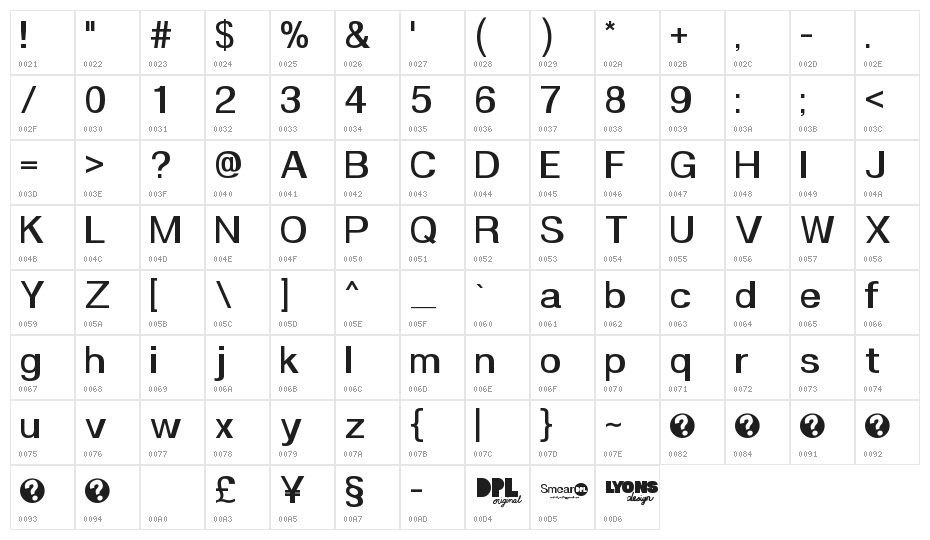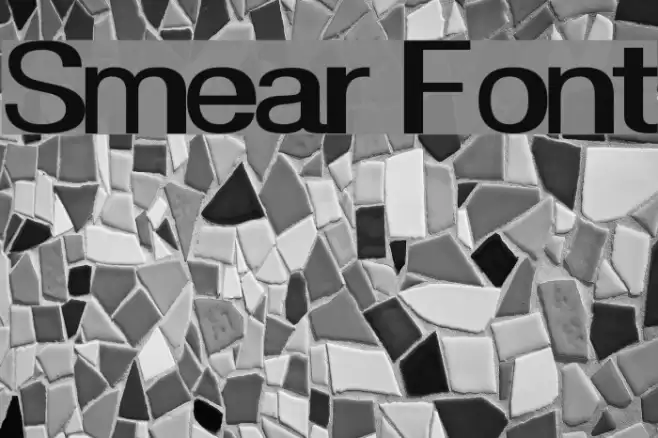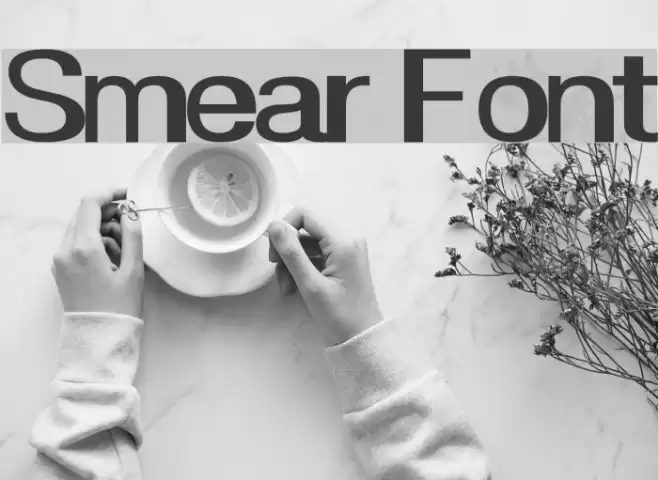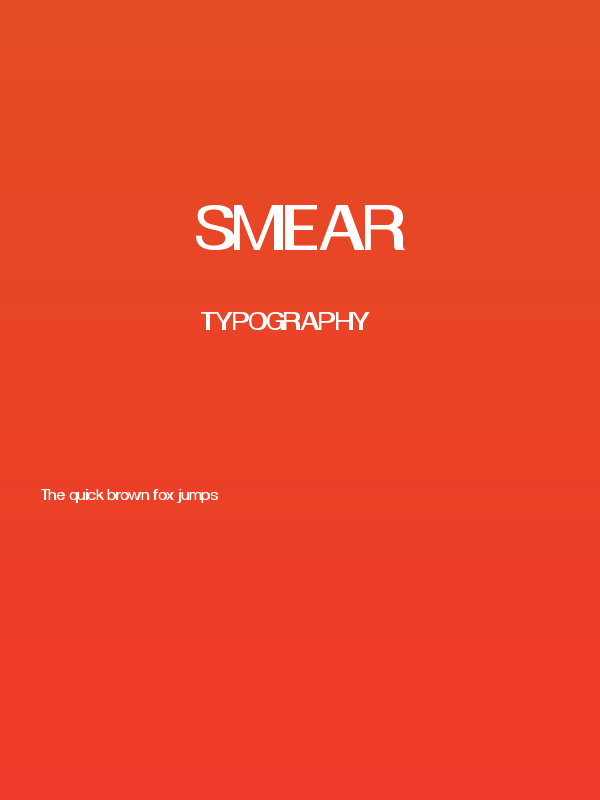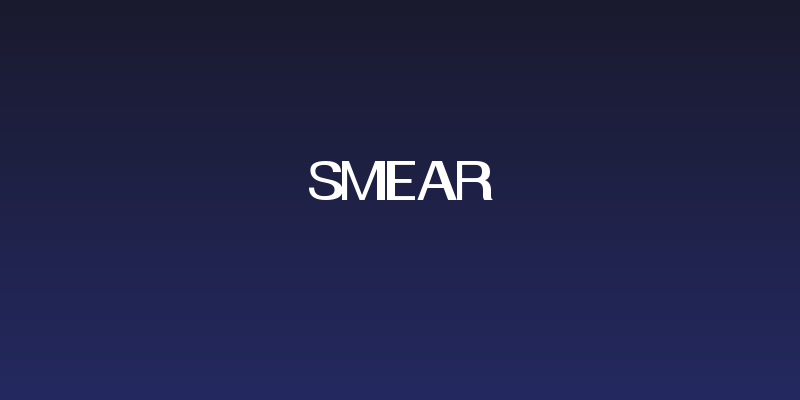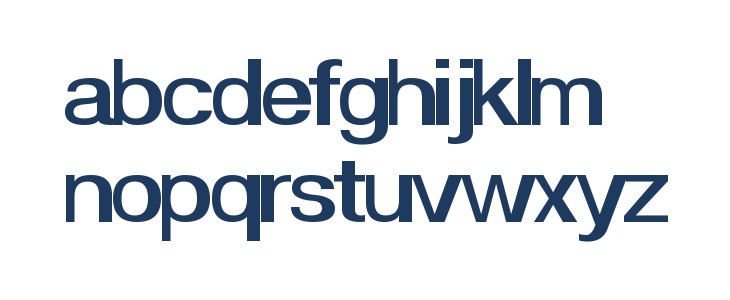
Smear Font
Smear Description
This font features a bold and modern sans-serif design with clean lines and a strong presence. The characters are uniformly thick, providing a consistent and powerful look across all letters and numbers. The uppercase and lowercase letters maintain a harmonious balance, with rounded edges that soften the overall appearance. The numerals are clear and easily distinguishable, making them suitable for a variety of applications. Special characters are included, enhancing the font's versatility. The design is straightforward yet impactful, making it ideal for contemporary projects.
| Use Case | Headlines, Logos, Advertising |
| Proposed Projects | Ideal for branding, advertising, headlines, and digital media where a modern and bold statement is needed. |